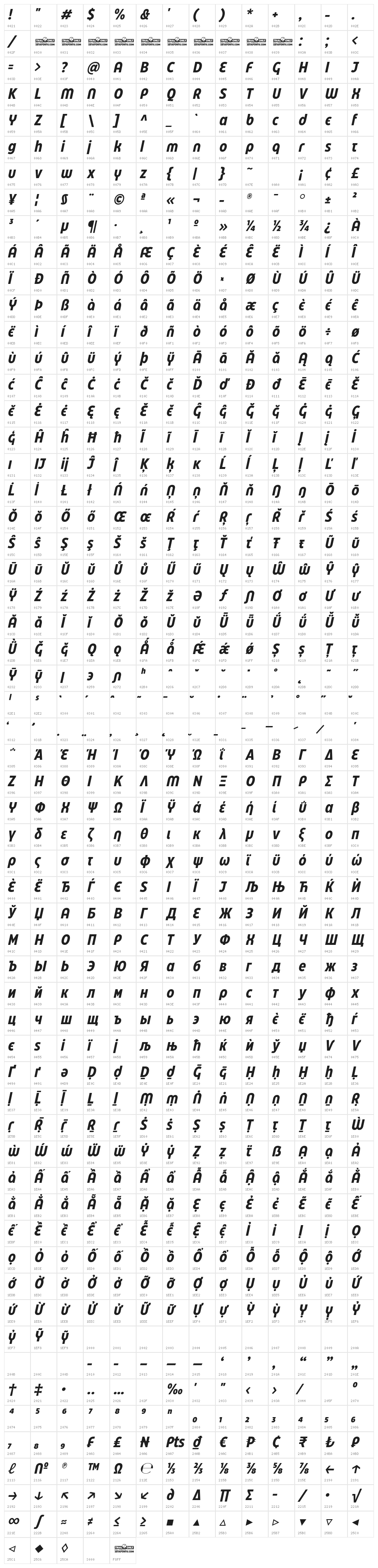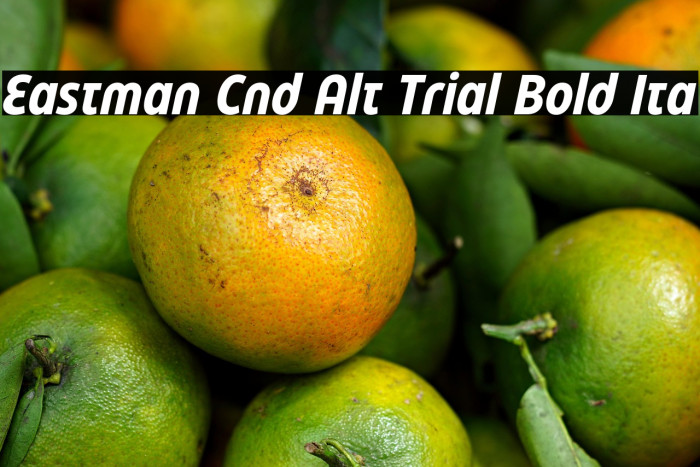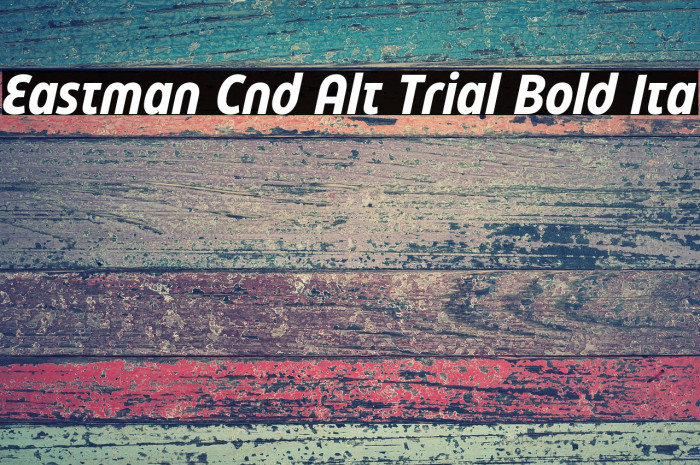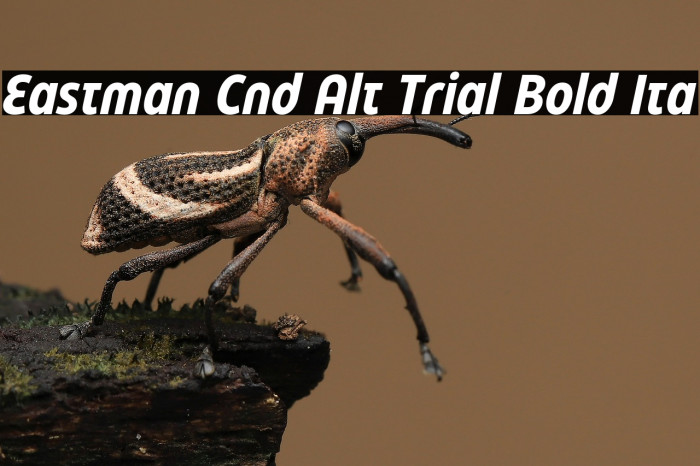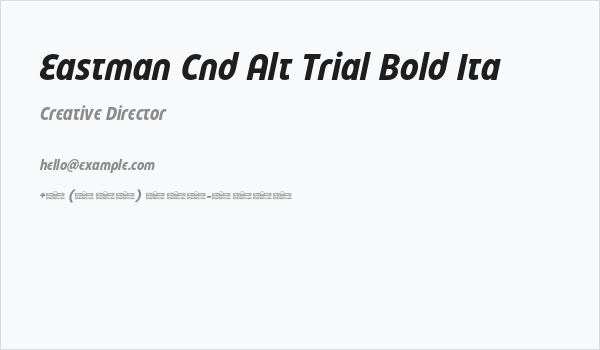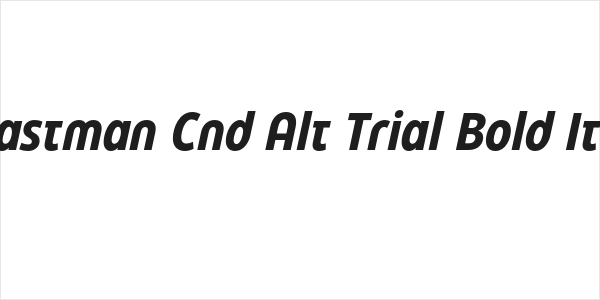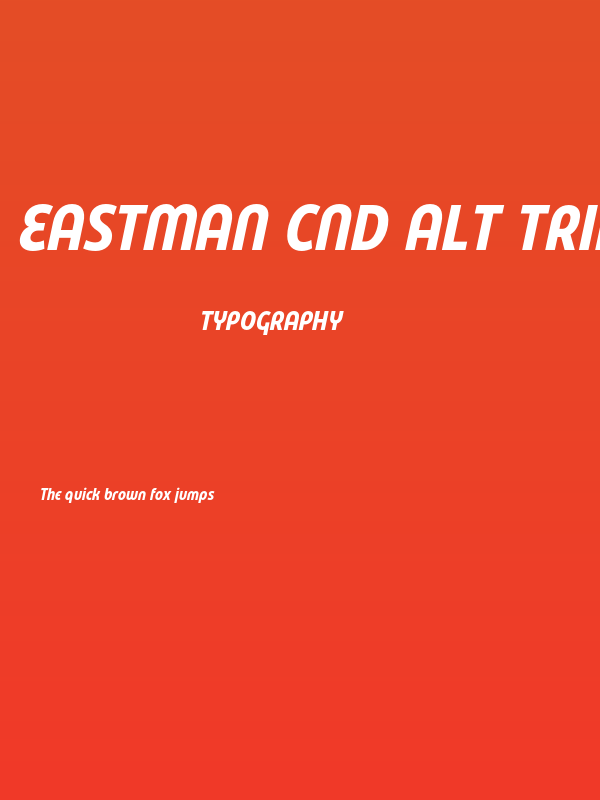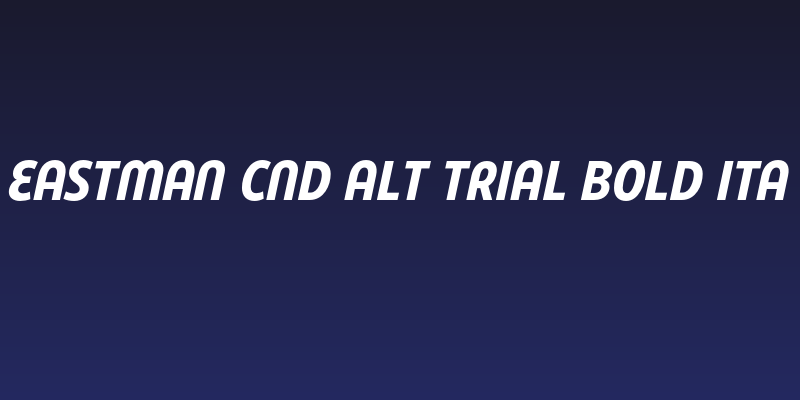
Eastman Cnd Alt Trial Bold Ita Font
Eastman Cnd Alt Trial Bold Ita Description
This font features a bold and italicized style with a condensed width, giving it a strong and dynamic appearance. The characters are slightly slanted, enhancing the italic effect, while maintaining a uniform stroke thickness that provides a consistent and bold look. The uppercase and lowercase letters are well-proportioned, with a modern and clean design that makes it suitable for various applications. The special characters are distinct and match the overall style, ensuring readability and visual appeal. The font's condensed nature allows for efficient use of space, making it ideal for headlines and display purposes.
| Proposed Projects | Ideal for headlines, posters, branding, and advertising where a strong and modern impact is desired. |